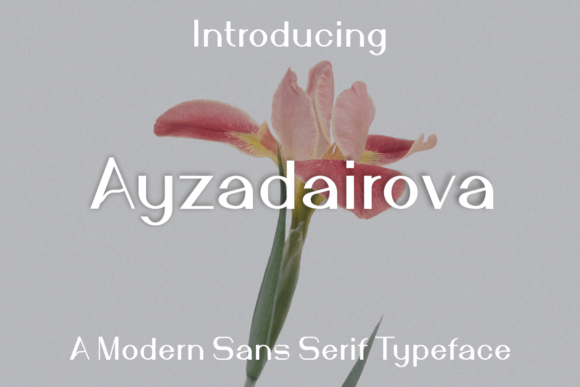
I still remember the frustration of working on a project, hours poured into every detail, only to hit a roadblock: finding the right font. My client wanted something modern, authentic, and stylish – a tall order! That’s when I stumbled upon the Ayzadairova Font. ✨
First Impressions: A Honest Review
As I dove into the world of Ayzadairova, here’s what I loved:
- ✅ Modern and Authentic: Ayzadairova’s sans serif design screams contemporary style while maintaining an air of authenticity.
- ✅ Classy and Stylish: This font elevates any project with its sleek lines and sophisticated feel.
- ✅ Versatility: Whether it’s for a logo, branding, or a craft project, Ayzadairova adapts seamlessly.
But, like any font, it’s not without its quirks:
- ⚠️ Limited Ligatures: While Ayzadairova supports some ligatures, it’s not extensive. This might be a drawback for projects requiring intricate ligature use.
- 🤔 Glyph Variety: Although it has a range of glyphs, some users might find it limited compared to more extensive font libraries.
The Story Behind Ayzadairova
While the origins of Ayzadairova might be shrouded in mystery, it’s clear that its designer aimed to create a font that’s both modern and timeless. Inspired by the sleek lines of urban landscapes and the authenticity of everyday interactions, Ayzadairova brings a fresh perspective to the world of typography.
| Font Name | Ayzadairova Font |
| Author | maikofarazhatta |
| What makes Ayzadairova unique? | Its blend of modernity and authenticity, making it suitable for a wide range of projects. |
Ayzadairova is more than just a font – it’s a design companion that brings a touch of modern sophistication to any project. Whether you’re a designer, crafter, or hobbyist, exploring Ayzadairova’s capabilities can elevate your creative output.